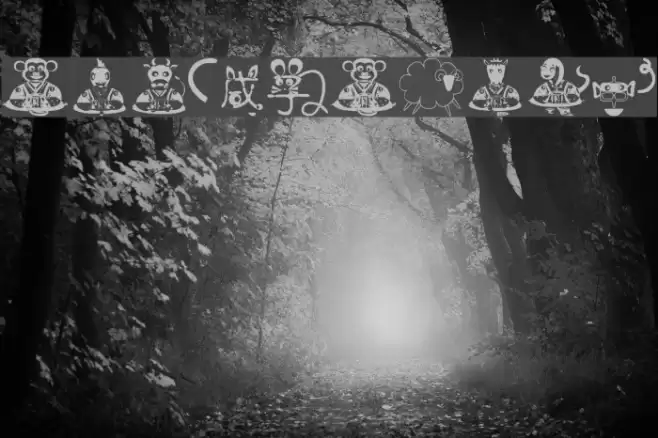
SimplyFriends Font
SimplyFriends Description
This font is a whimsical and playful collection of characters, each represented by a unique and charming animal or creature illustration. The designs are intricate, with each character featuring distinct details that make them stand out. The font is highly decorative, making it ideal for projects that require a fun and engaging visual element. The characters are evenly spaced, ensuring readability despite their detailed designs. This font is perfect for children's books, playful branding, or any creative project that seeks to capture a sense of joy and imagination.
A whimsical font featuring playful animal illustrations for each character from Decorative fonts.
- Proposed Projects: Children's books, playful branding, creative invitations, and whimsical posters.
- Use Case: Logos, Posters, Creative projects